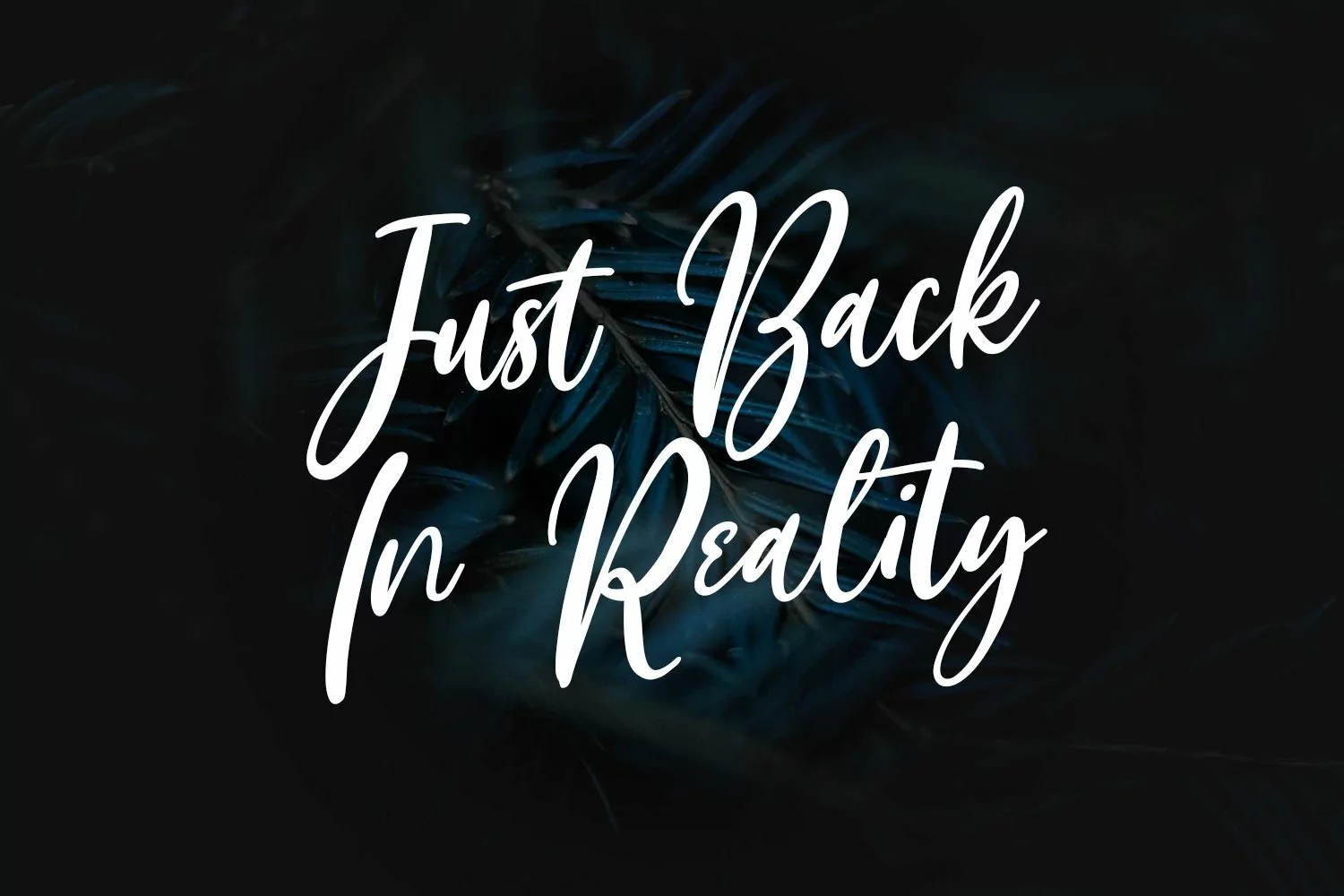
Caytielo is Handwritten Script font. With bold stroke, slanted and fun character with a bit of ligatures. To give you an extra creative work. Caytielo font support multilingual more than 100+ language. This font is good for logo design, Social media, Movie Titles, Books Titles, a short text even a long text letter and good for your secondary text font with sans or serif. Make a stunning work with Caytielo font.